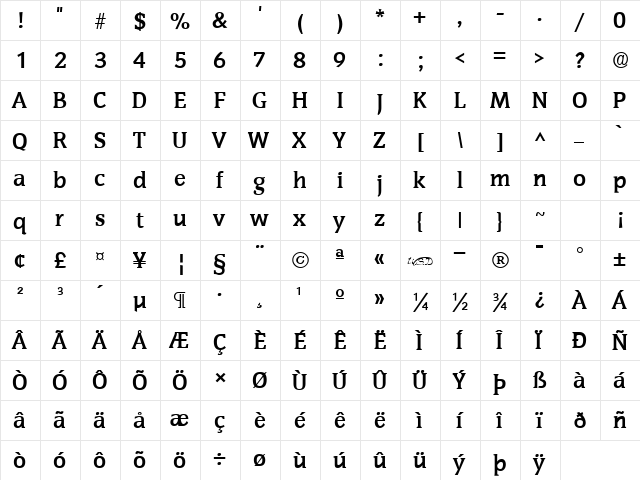
Senate Bold Font Preview
Senate Bold
Design Context for Senate Typeface
Senate offers clean, dependable letterforms without strong stylistic allegiance, making it a practical choice for designers who need flexibility. Its bold stroke weight gives it real presence on the page.
Pro Tip: Use Senate in both headline and body roles to test its range before committing to a single application.